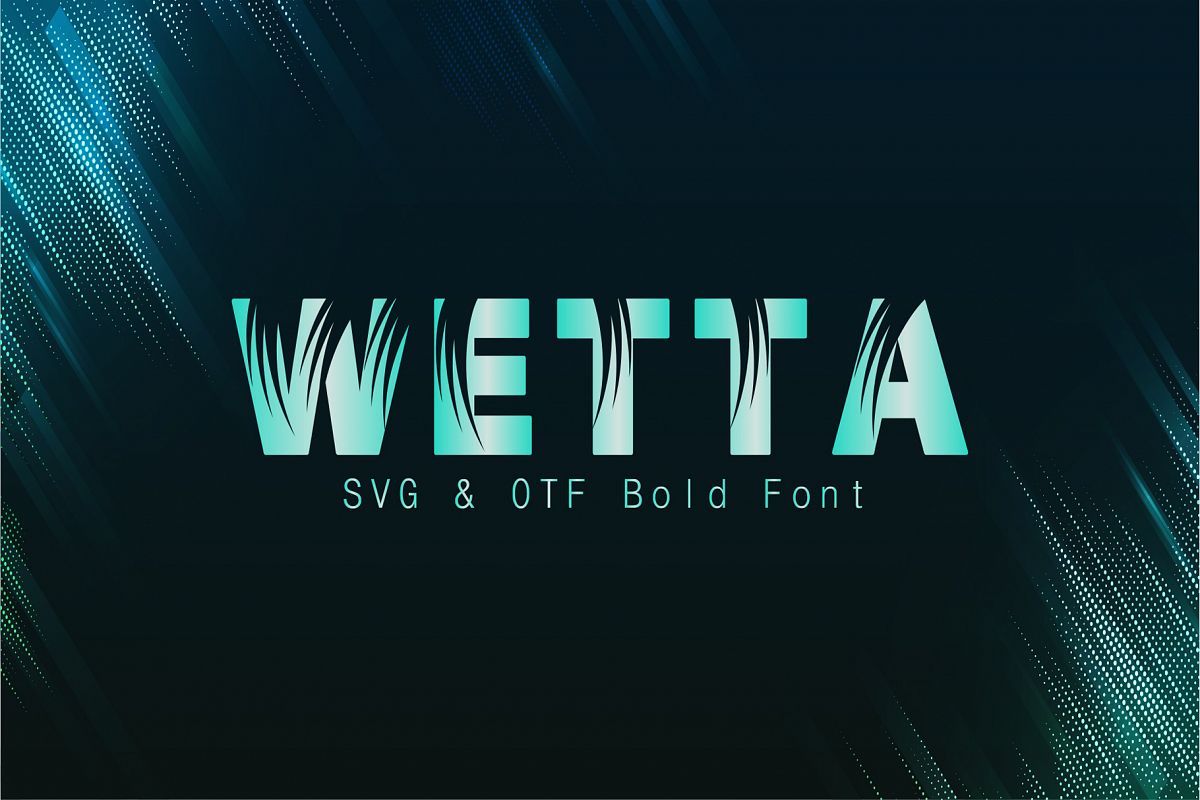
Wetta Regular Font
Wetta
t is an excellent bold typeface with sharp lines. It is a font that you can use in posters, advertisements, business cards, web sites, wedding invitations, sports equipment and more.Combine with images to really wow them humans.Because of its high quality details and visual appealing Wetta font is suitable for most design needs, the font is best used in large font sizes (such as in advertisements, labels, brochures, posters.. etc) making it a perfect choice for designers.